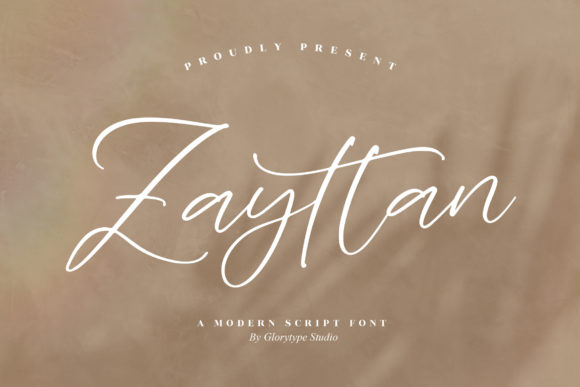
**Zayttan Font: Captivating Script for Unforgettable Impressions**
Step into the realm of visual storytelling with Zayttan Font, a masterpiece crafted by Glorytype Studio. This enchanting script font invites you to unleash your creativity and leave an everlasting mark on your designs.
With its elegant curves and expressive strokes, Zayttan transforms words into captivating works of art. It's a font that speaks to the heart, evoking emotions and making messages resonate with profound impact.
Whether you're crafting eye-catching posters that command attention or designing logos that exude sophistication, Zayttan is your perfect companion. Its versatility extends beyond the digital realm, seamlessly adorning mugs, shopping bags, and other physical products with its timeless allure.
Imagine your brand identity adorned with the graceful lines of Zayttan, instantly recognizable and leaving a lasting impression on your target audience. Let your homeware designs whisper a tale of elegance, your product packaging evoke a sense of intrigue, and your invitations radiate warmth and charm.
In a world saturated with visual noise, Zayttan Font empowers you to stand out with its captivating presence. Whether you're a seasoned designer or a creative enthusiast, Zayttan is your key to unlocking unforgettable visual experiences.
**Unleash the Power of Zayttan Font Today:**
+ Craft enchanting posters that demand attention
+ Design logos that exude sophistication and memorability
+ Adorn mugs, shopping bags, and other products with timeless elegance
+ Elevate your brand identity and leave a lasting impression
+ Create invitations and greeting cards that radiate warmth and charm
+ Capture the essence of special events with unforgettable typography